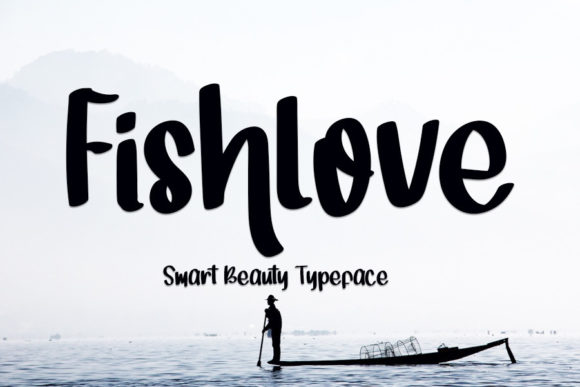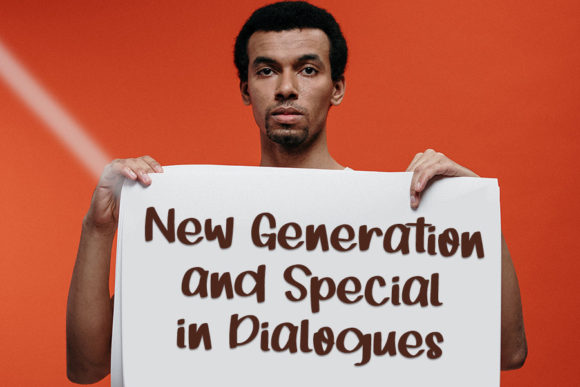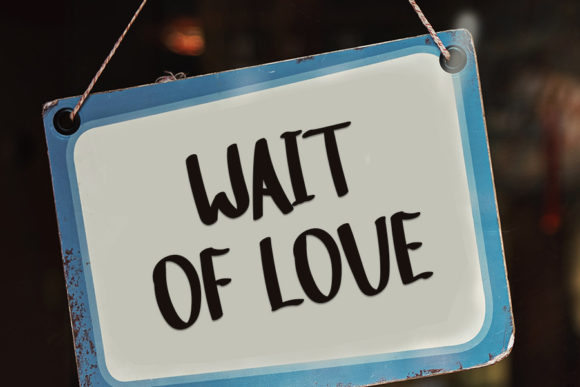
About Fishlove Font
Fishlove is a cool and friendly handwritten font, that features a relaxed and sweet style. It is defined by smooth curves and is perfect for fashion branding or editorial designs. Add it confidently to your projects, and you will love the results.